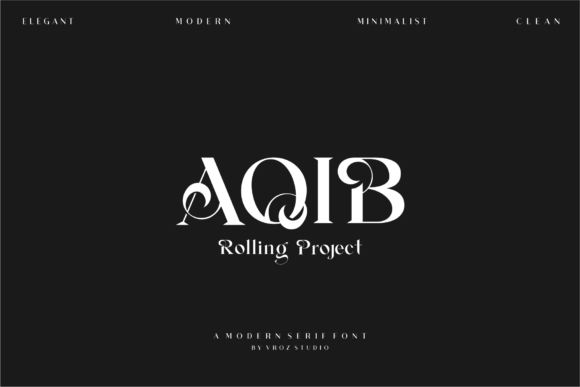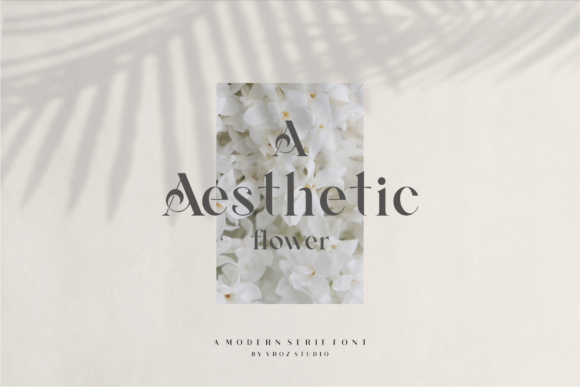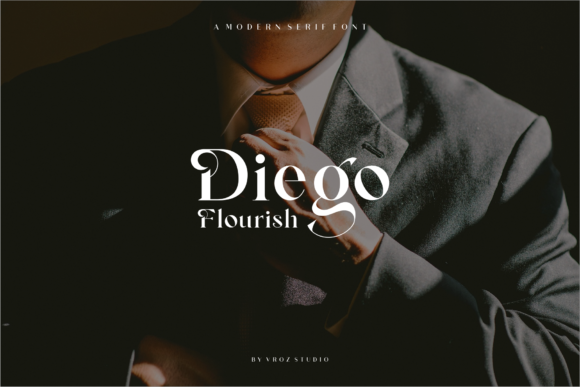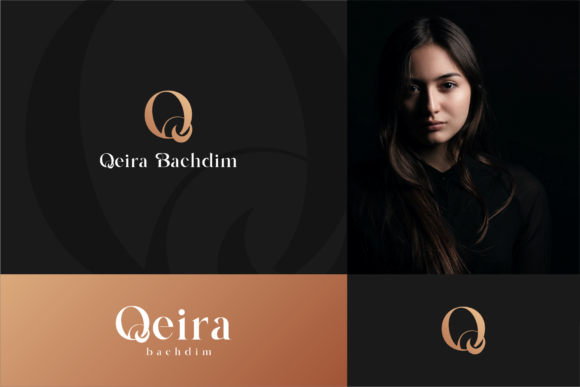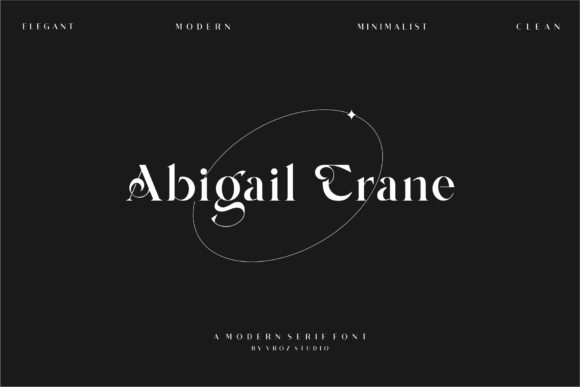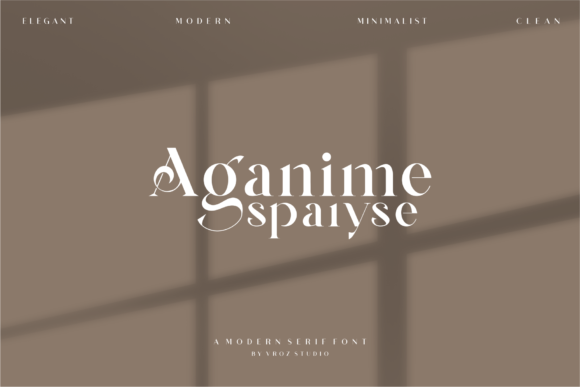
Introducing Avgaf Font: Elevate Your Crafting Ideas with Elegance and Trendiness
In the world of design and crafting, the right font can make all the difference. It’s not just about conveying a message; it’s about evoking emotions, setting the tone, and creating a lasting impression. If you’re on the lookout for a font that combines elegance with a touch of modern trendiness, look no further than Avgaf Font. This beautiful serif font is designed to elevate a wide range of crafting ideas, from cards and branding to labels and much more.
The Essence of Avgaf Font
At its core, Avgaf Font is an elegant serif font that strikes the perfect balance between classic sophistication and contemporary flair. Its design is meticulous, with attention to detail that ensures it stands out in any project. Whether you’re working on a professional branding campaign or a personal crafting project, Avgaf Font brings a level of refinement and poise that’s hard to match.
One of the key benefits of Avgaf Font is its incredible versatility. It’s a font that can adapt to various design needs and contexts. Here are some ways you can use Avgaf Font to enhance your projects:
- Cards: Add a touch of elegance to your greeting cards, invitations, and thank-you notes. Avgaf Font’s clear and readable letters ensure your message is conveyed with style.
- Branding: Establish a sophisticated brand identity with Avgaf Font. It’s perfect for logos, packaging, and marketing materials that require a professional yet trendy look.
- Labels: Whether you’re labeling products, files, or gifts, Avgaf Font adds a touch of class and personality to your labels.
- And More: From digital content to print materials, Avgaf Font can enhance a wide array of projects, including blogs, social media graphics, posters, and flyers.
Why Choose Avgaf Font?
With so many fonts available, why should Avgaf Font be your go-to choice? Here are a few compelling reasons:
- Elegance: Avgaf Font exudes elegance, making it perfect for projects where you want to convey sophistication and refinement.
- Trendiness: Despite its classic roots, Avgaf Font has a modern twist that keeps it relevant and trendy.
- Readability: The font’s clear and well-defined letters ensure excellent readability, even at smaller sizes.
- Versatility: As mentioned earlier, Avgaf Font’s versatility is one of its standout features, allowing you to use it across a wide range of projects.
Tips for Using Avgaf Font Effectively
To get the most out of Avgaf Font, consider the following tips:
- Pair it Wisely: Avgaf Font works well with both simple and complex backgrounds. Experiment with different pairings to find the one that best suits your project.
- Play with Sizes: Don’t be afraid to vary the font size to create visual hierarchy and emphasis in your designs.
- Experiment with Colors: While Avgaf Font looks great in black and white, feel free to experiment with different colors to match your brand’s palette or project theme.
Avgaf Font is more than just a font; it’s a design tool that can transform your crafting ideas into stunning realities. Its elegant serif design, combined with a perfect dose of trendiness, makes it an excellent choice for designers and crafters alike. Whether you’re working on professional projects or personal crafting endeavors, Avgaf Font is sure to elevate your creations and leave a lasting impression.